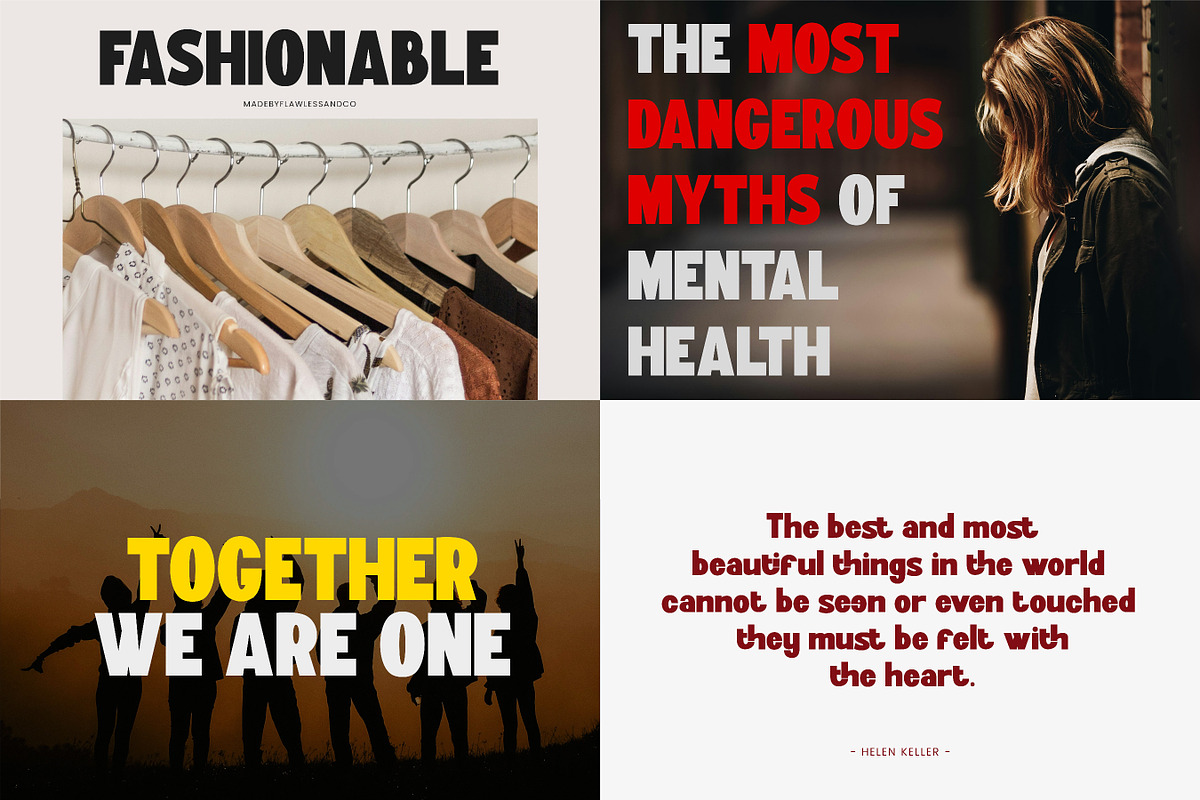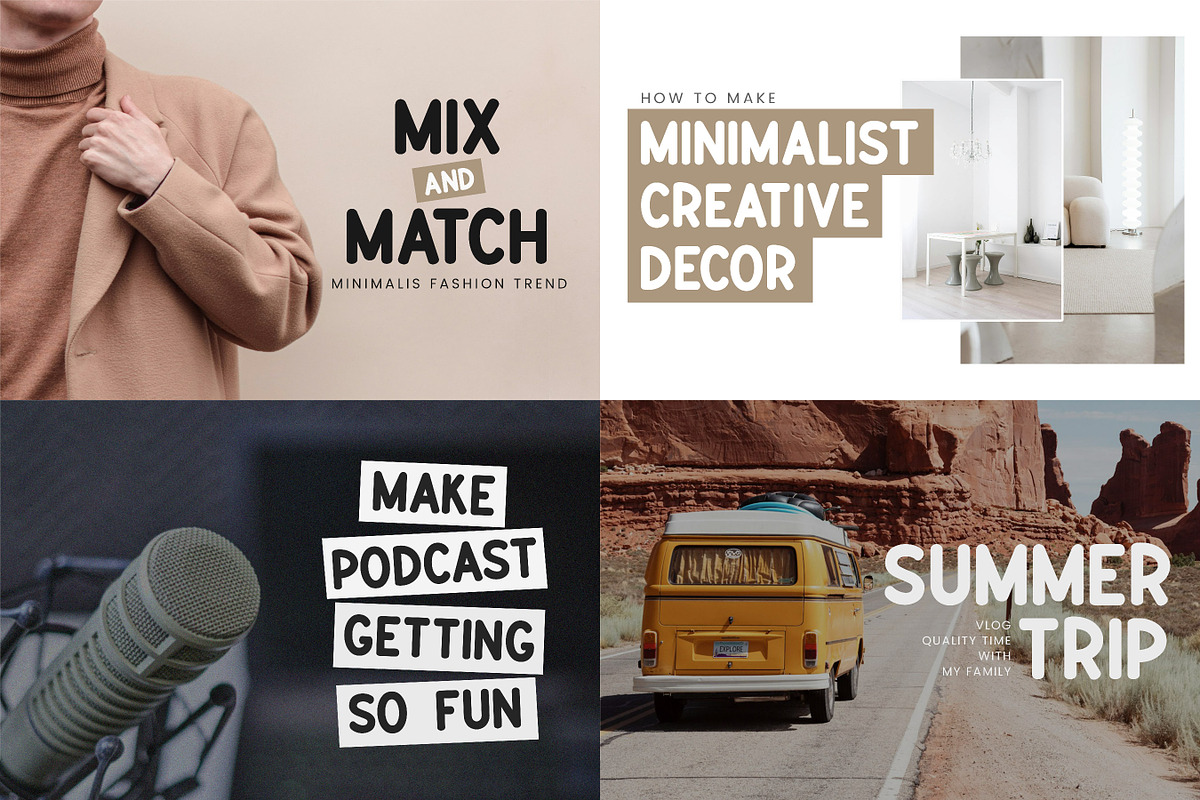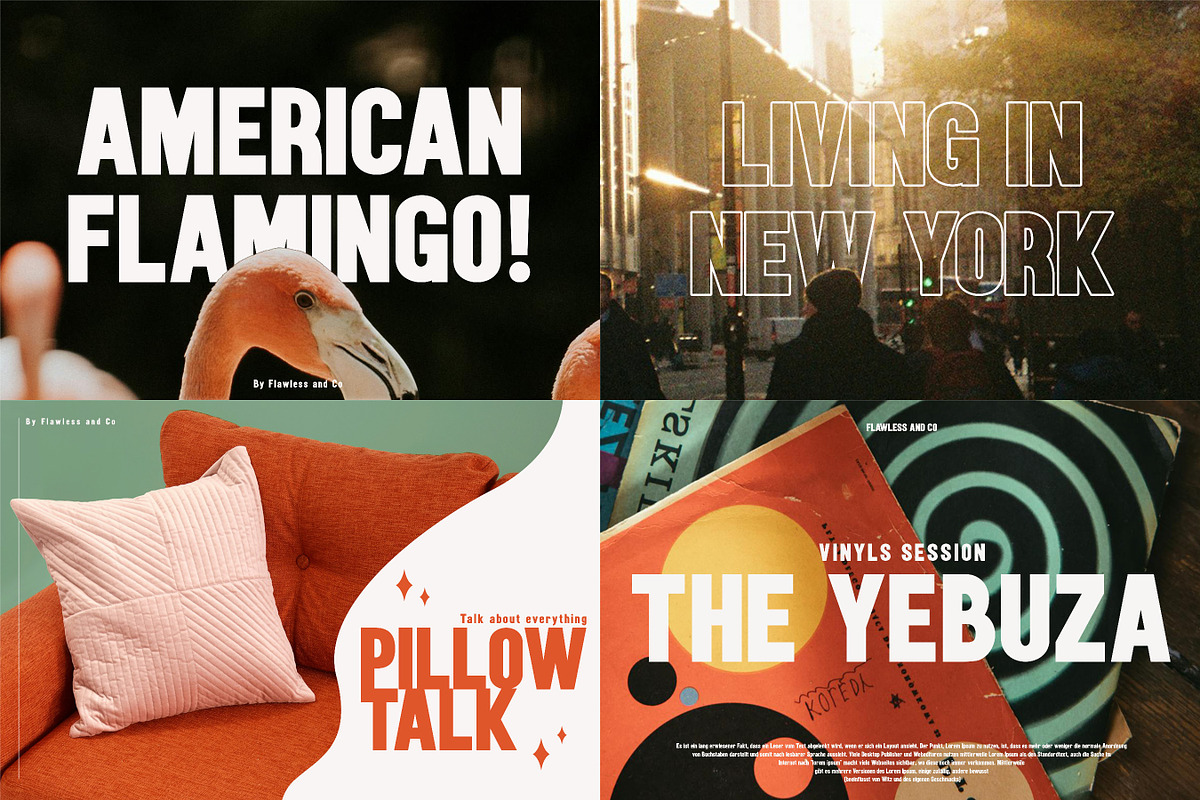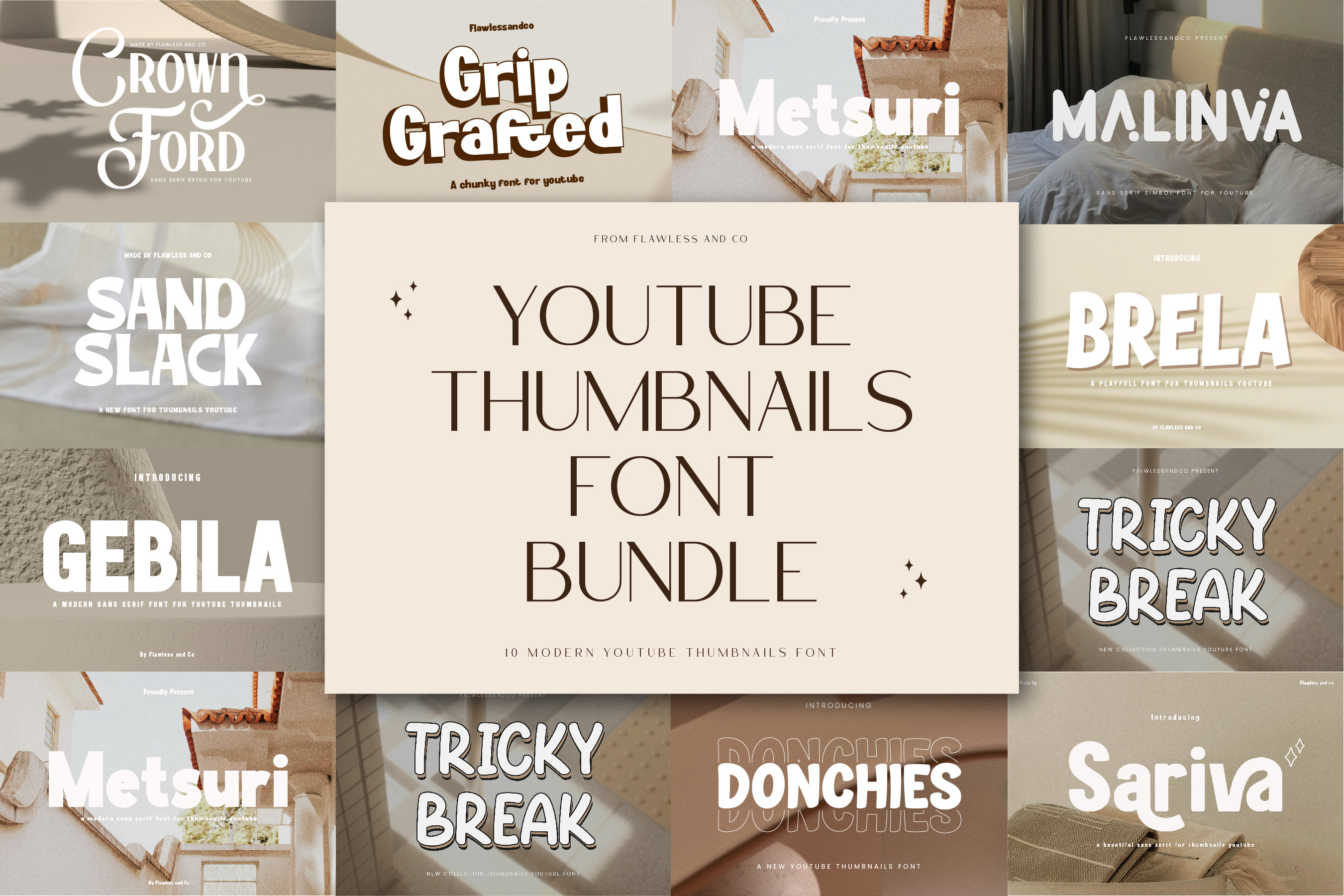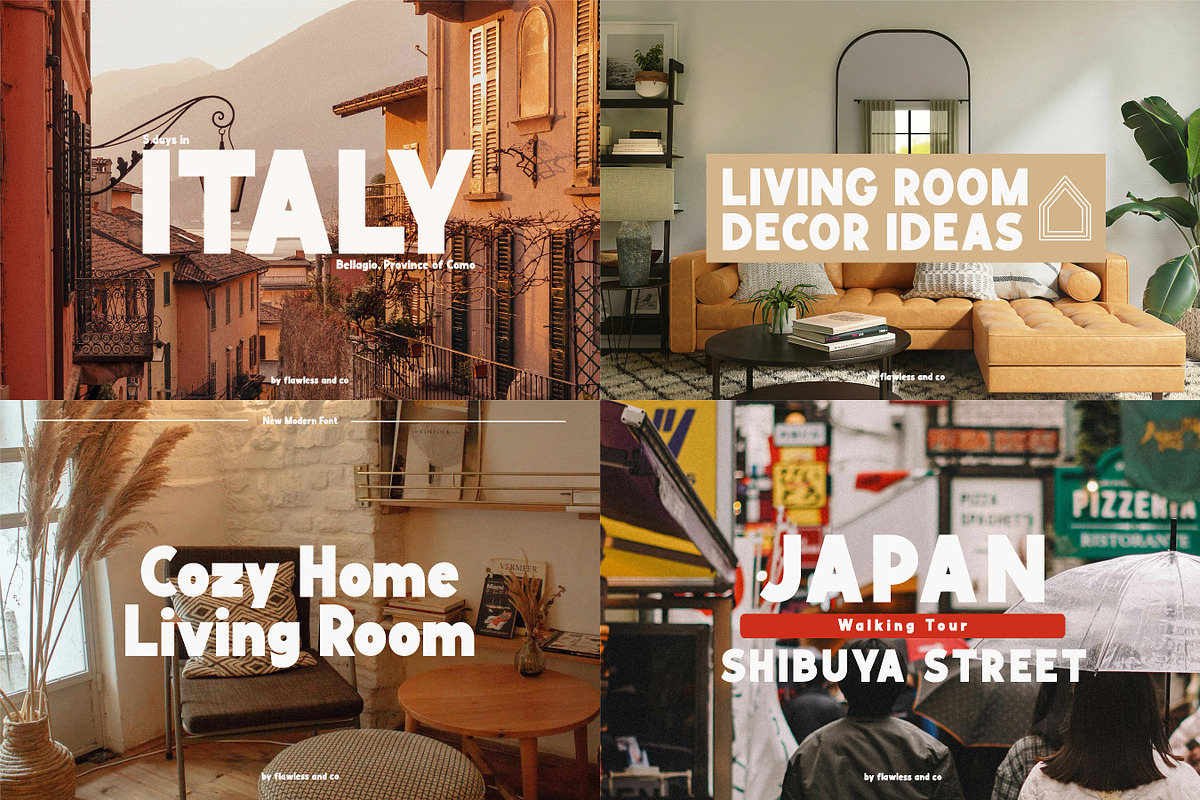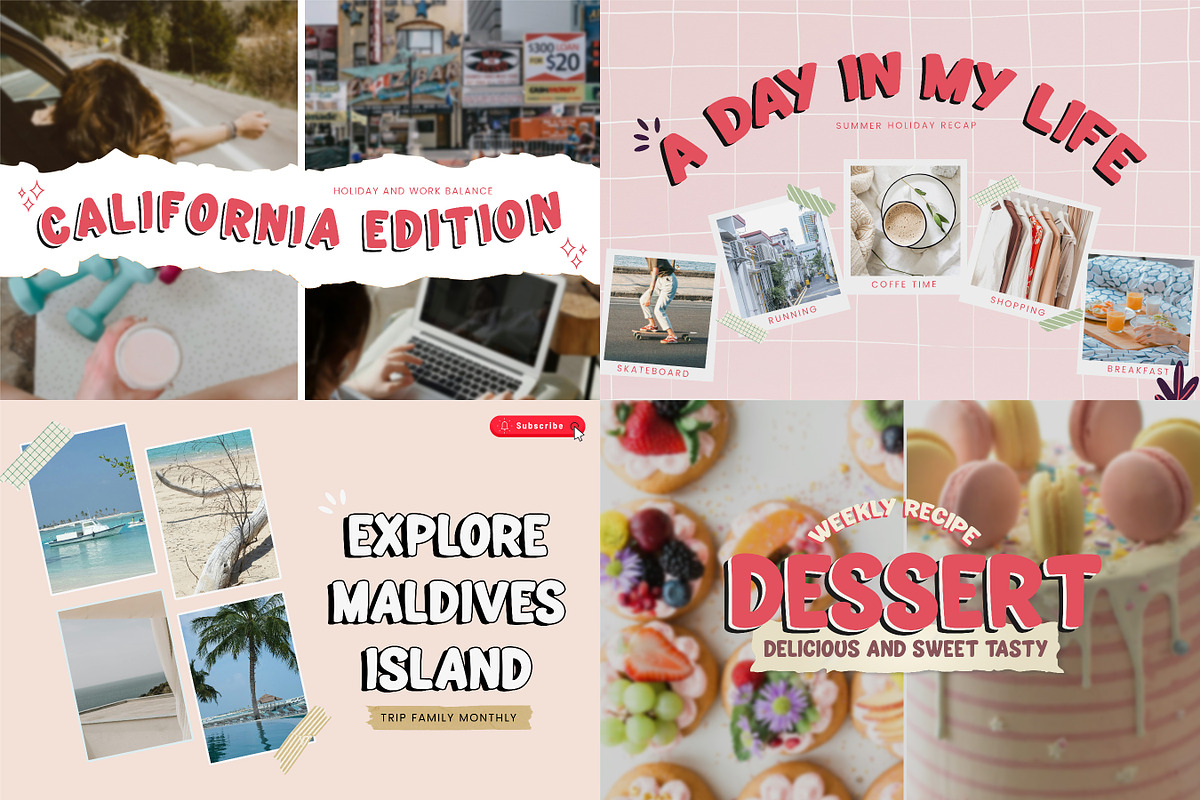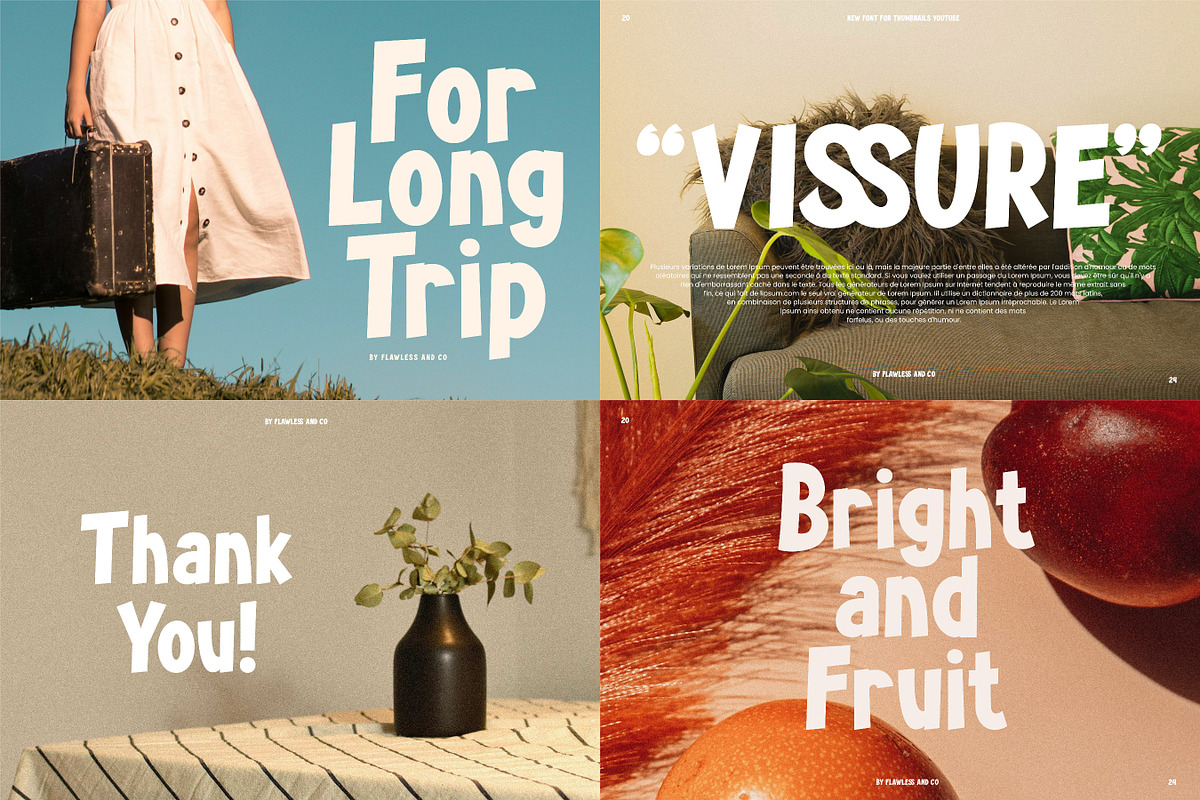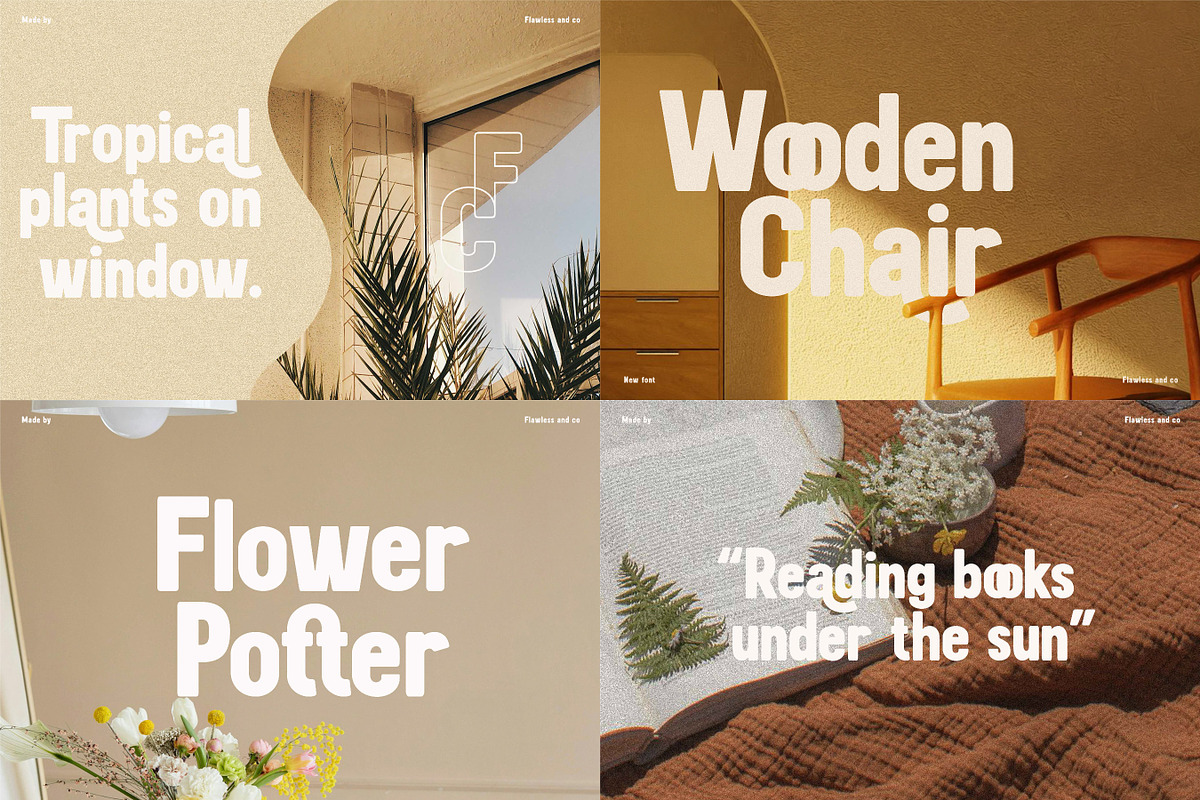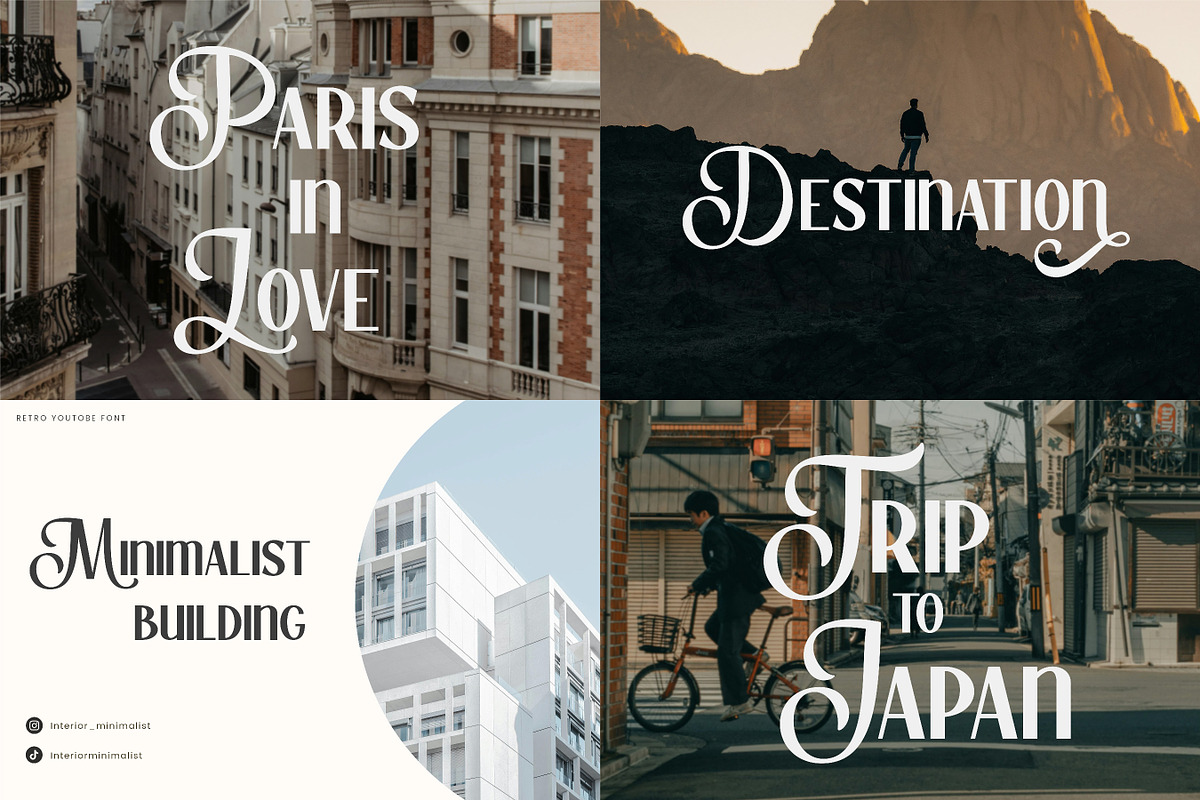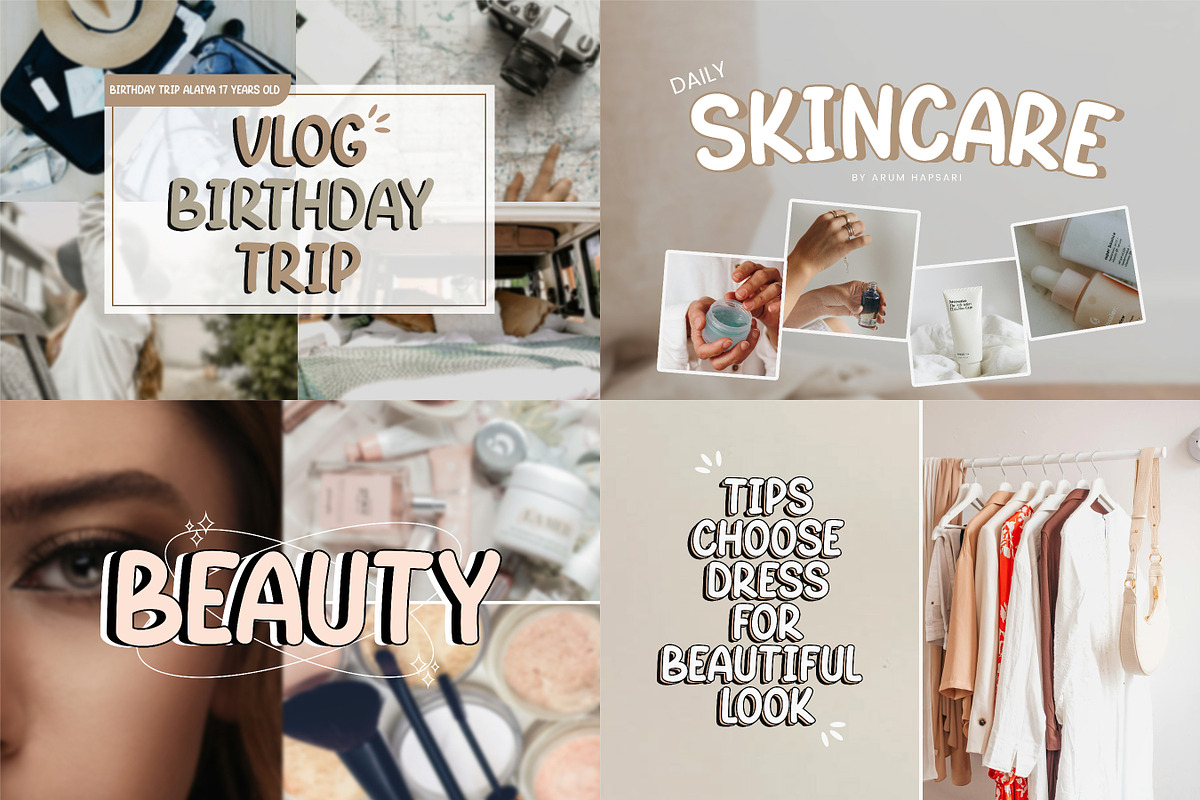
Thumbnails YouTube Font Bundle
Introducing the "Thumbnails YouTube Font Bundle," a collection of 10 dynamic and attention-grabbing fonts designed specifically for creating stunning YouTube thumbnails. This bundle ensures that your thumbnails stand out in the crowded world of YouTube, attracting viewers and increasing clicks with its diverse range of styles.
- Crown Ford
- Grip Grafted
- Metsuri
- Malinva
- Sand Slack
- Brela
- Gebila
- Tricky Break
- Dochies
- Sariva